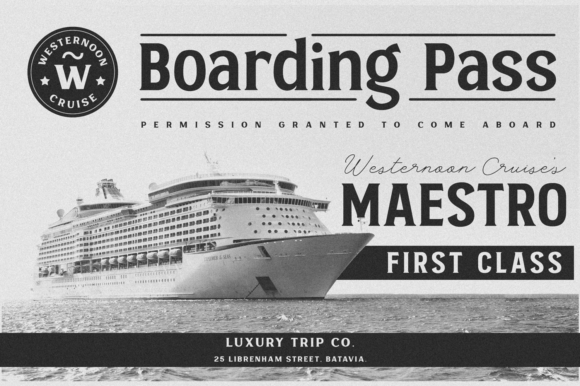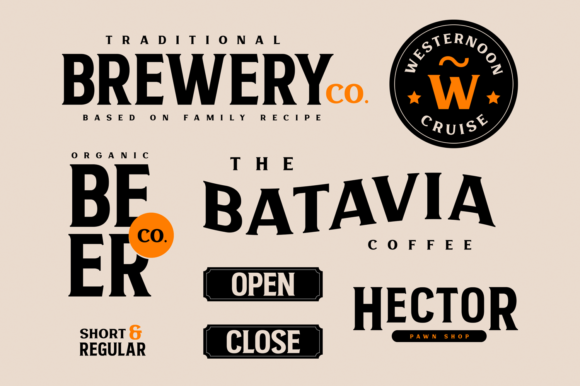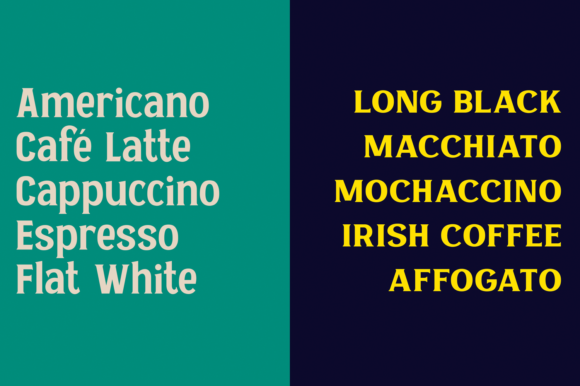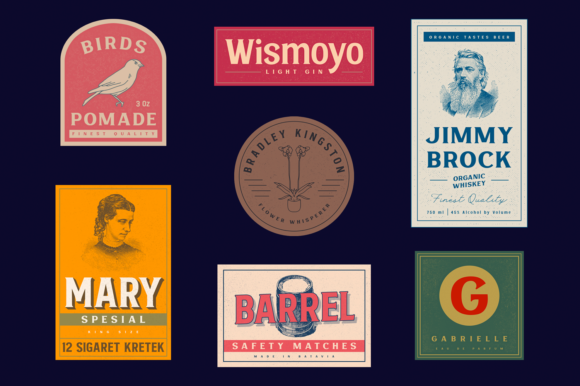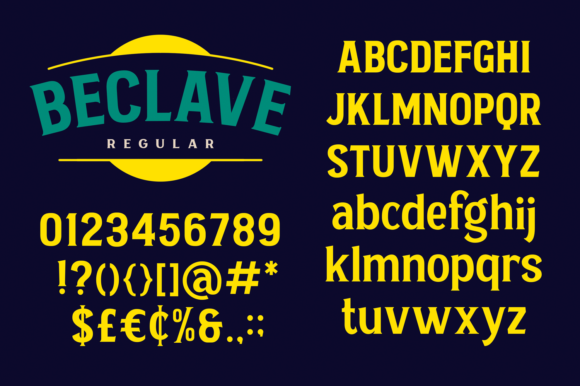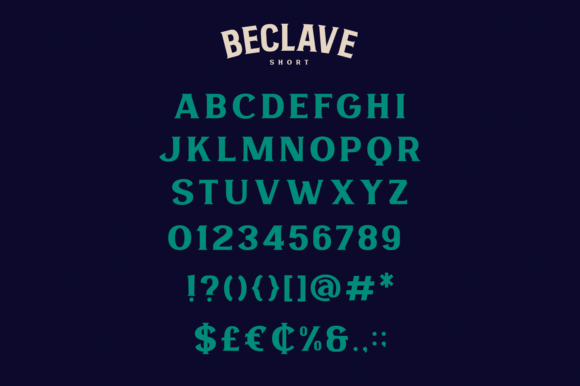
Introducing Beclave Font: Elevate Your Crafting Ideas with Bold and Authentic Serif Style
Are you a designer, crafter, or DIY enthusiast looking for a font that can add a touch of sophistication and elegance to your projects? Look no further than Beclave Font, a bold, thick lettered, and authentic serif font that’s perfect for a wide range of crafting ideas. From cards and branding to labels and more, Beclave Font is the perfect addition to take your creations to the next level.
What is Beclave Font?
Beclave Font is a carefully crafted serif font that’s designed to make a statement. Its bold and thick lettering gives it a sturdy and dependable feel, while its authentic serif style adds a touch of classic elegance. Whether you’re working on a modern design project or a traditional crafting idea, Beclave Font is the perfect choice to add some sophistication and style.
Key Features of Beclave Font
- Bold and Thick Lettering: Beclave Font features bold and thick lettering that’s perfect for making a statement. Its sturdy design ensures that your text stands out and grabs attention.
- Authentic Serif Style: The font’s authentic serif style adds a touch of classic elegance to your designs. The serifs provide a sense of tradition and sophistication, making it perfect for a wide range of crafting ideas.
- Versatile: Beclave Font is incredibly versatile and can be used for a wide range of projects, from cards and branding to labels and more.
- Easily Readable: Despite its bold design, Beclave Font is easily readable, making it perfect for body text and headings.
How to Use Beclave Font in Your Crafting Ideas
Beclave Font is perfect for a wide range of crafting ideas, including:
- Cards: Add a touch of elegance to your greeting cards, invitations, and postcards with Beclave Font.
- Branding: Use Beclave Font to create bold and eye-catching logos, business cards, and letterheads.
- Labels: Create professional-looking labels for your products, files, or gifts with Beclave Font.
- Signage: Use Beclave Font to create eye-catching signs, banners, and posters for your business or event.
Tips and Tricks for Using Beclave Font
Here are some tips and tricks to help you get the most out of Beclave Font:
- Experiment with Colors: Beclave Font looks great in a wide range of colors. Experiment with different colors to find the perfect combination for your project.
- Mix and Match Fonts: Combine Beclave Font with other fonts to create a unique and eye-catching design.
- Play with Sizes: Experiment with different font sizes to create visual interest and hierarchy in your design.
In conclusion, Beclave Font is a bold, thick lettered, and authentic serif font that’s perfect for a wide range of crafting ideas. Its versatility, readability, and elegant design make it a must-have for designers, crafters, and DIY enthusiasts. Add Beclave Font to your favorite creations and be amazed by the outcome!